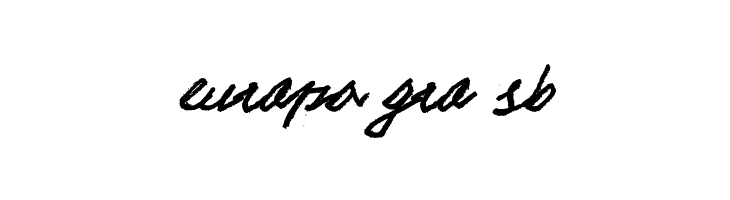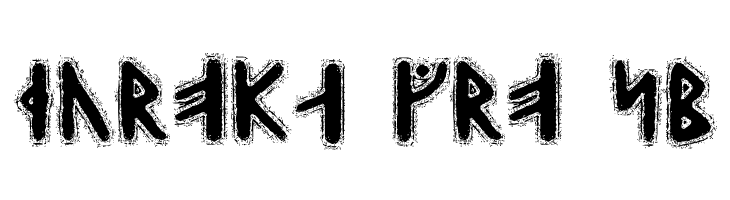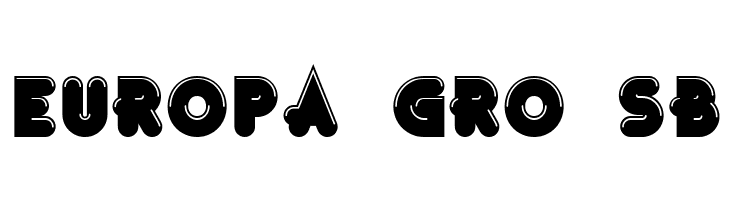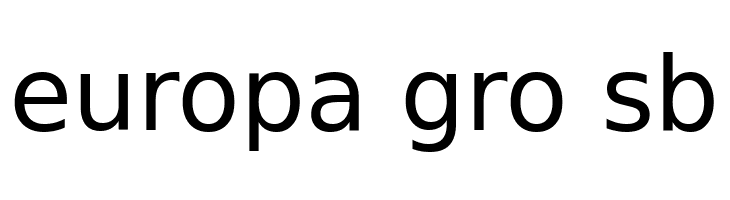
A bold, textured script font with a dynamic, handwritten style.
A decorative, runic-inspired font with a bold, distressed texture.
A modern, geometric font with a bold, uniform stroke and unique curves.
A rugged, distressed font with a hand-drawn, edgy style.
A bold, playful font with a shiny outline and three-dimensional effect.
A clean, modern sans-serif font with uniform stroke weight and rounded edges.